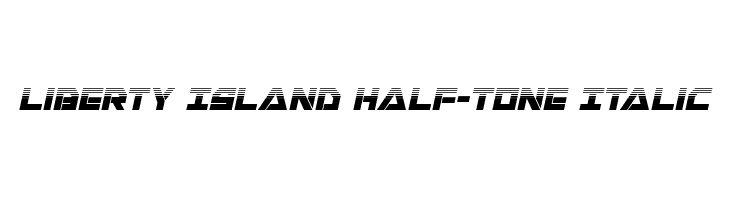
A bold, italicized font with a gradient effect from horizontal lines, offering a modern and dynamic look.
A modern, gradient-style font with bold, geometric shapes and horizontal lines.
A bold, italicized font with a modern half-tone effect and geometric structure.
A bold, geometric font with a dynamic half-tone effect.
A bold, geometric, and italic font with a modern, dynamic style.
A bold, futuristic italic font with angular, geometric shapes.
A bold, geometric font with a futuristic and industrial style.
A bold, angular font with a futuristic and geometric style.